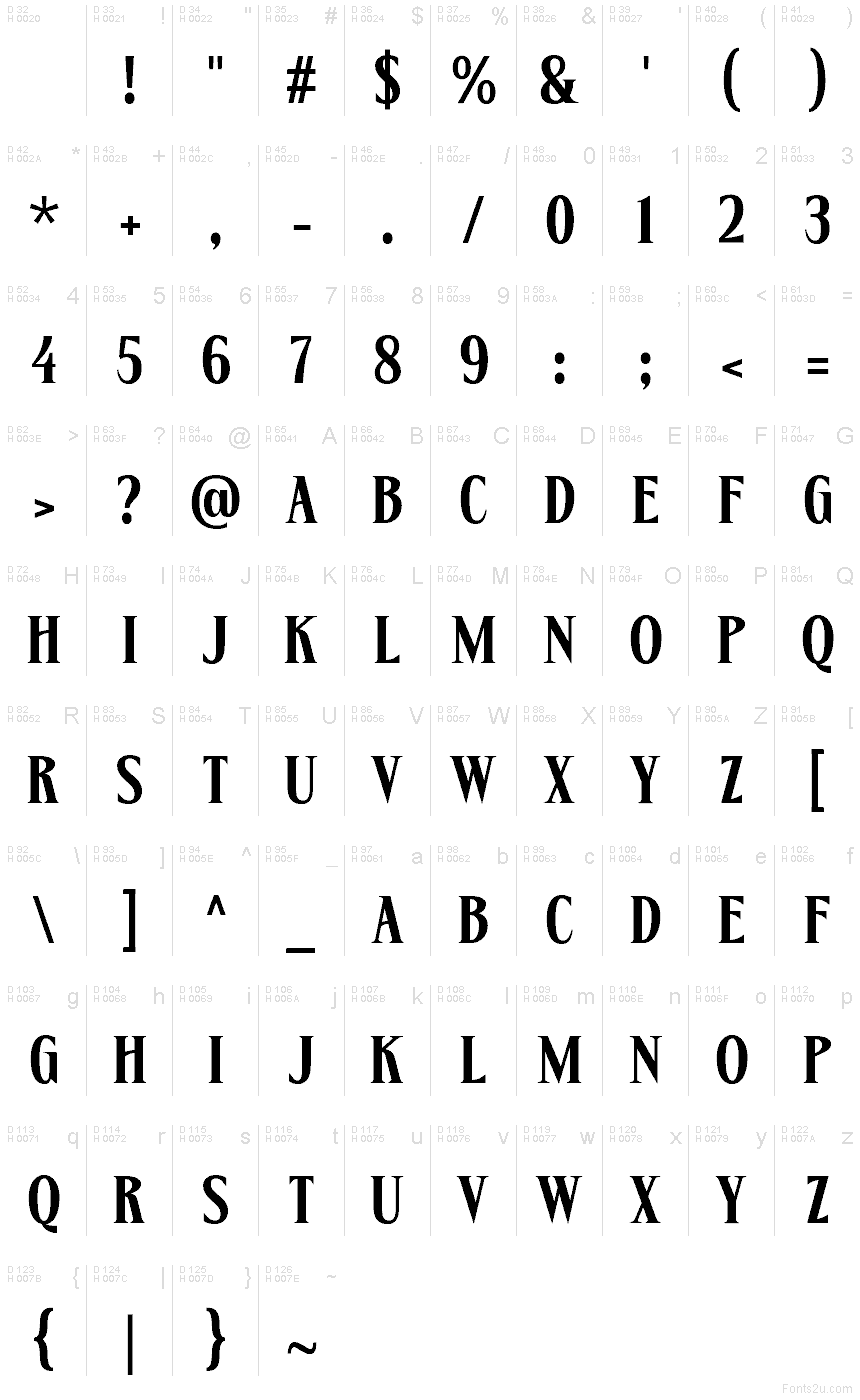
Escargoth font by Faqih Fawaji is a free modern gothic display font. It solves a common headache: getting that blackletter drama without the fussy, medieval illegibility. Tall, condensed forms, blade-like serifs, and firm verticals deliver a dark, editorial punch while staying clean enough to read at a glance. The texture feels inky and deliberate-more runway goth than dungeon relic-so your message lands with impact, not clutter.
Using Escargoth, headlines snap to attention on album art, fashion branding, game titles, horror posters, book covers, and upscale beverage labels. This free font shines on event flyers and tattoo studio logos too, where its tight rhythm stacks beautifully. Pair with a calm geometric sans for body copy, and add a touch of letterspacing at smaller sizes to keep the edges crisp.